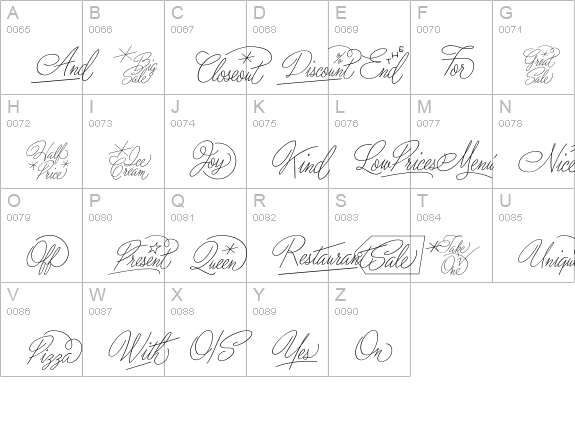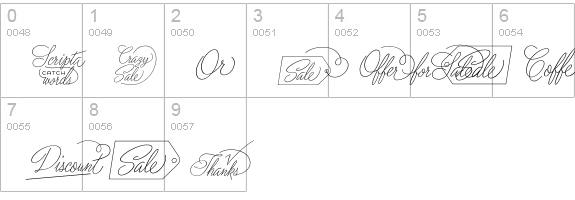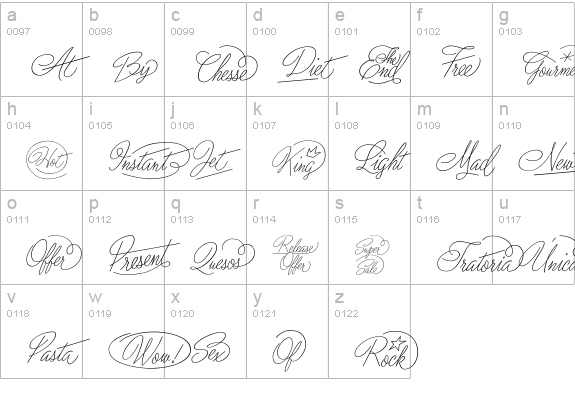
Introducing ScriptaCatchwords font, a whimsical and elegant typeface perfect for adding a touch of charm to your design projects. This delightful font features a collection of beautifully crafted catchwords that effortlessly complement your text and give your designs a unique flair. With its graceful curves and stylish flourishes, ScriptaCatchwords font is sure to captivate your audience and enhance the overall aesthetic of your creations. Best of all, ScriptaCatchwords font is available for free download at FontsMarket.com. Whether you're working on invitations, greeting cards, posters, or any other creative project, this font will bring a touch of sophistication and creativity to your work. Don't miss out on this opportunity to elevate your designs with the enchanting ScriptaCatchwords font - download it now and let your creativity shine!